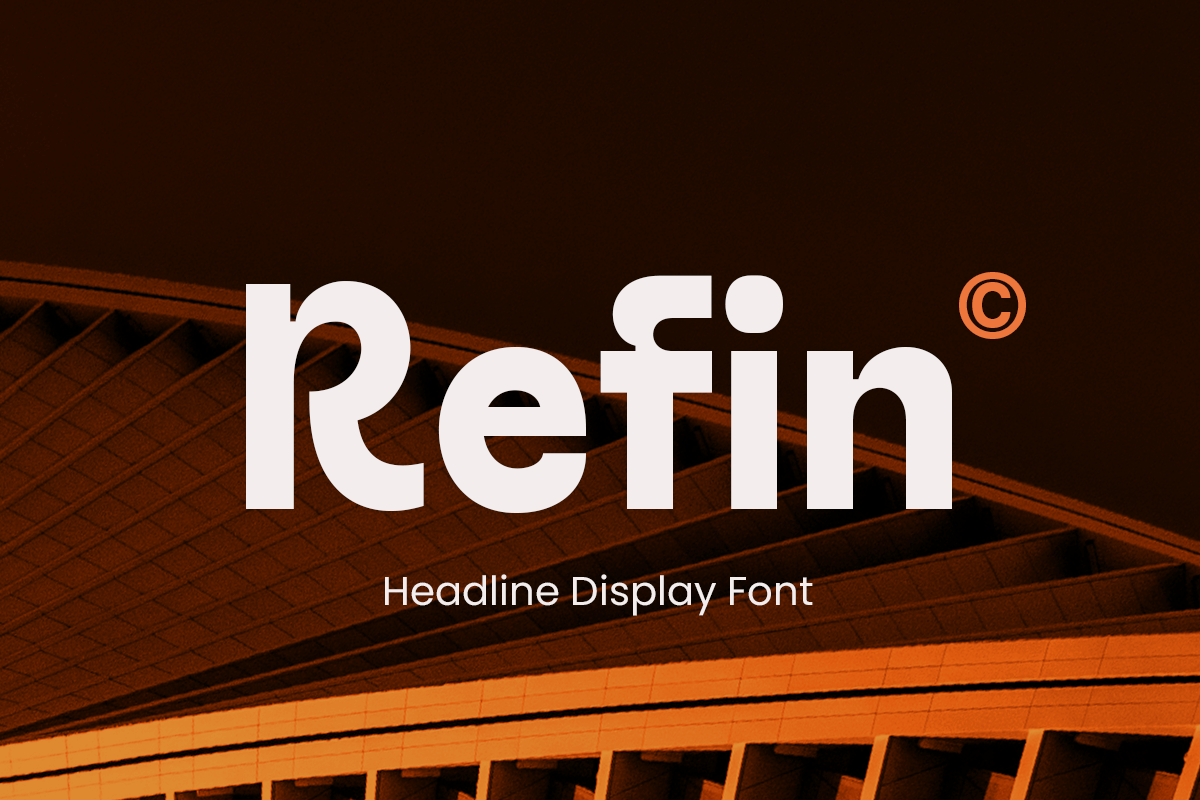
Refin
-Headline Display FontRefin is a bold and striking display font designed to make a statement. With its roots in brutalist aesthetics, Refin embodies a raw and powerful style, perfect for eye-catching headlines and impactful branding. The font’s sharp angles and strong lines give it an edgy, modern feel that’s ideal for projects seeking a touch of industrial flair.
This font was inspired by urban architecture and minimalist design, allowing it to stand out in digital and print media alike. Refin brings an unmistakable strength and clarity, making it a perfect choice for fashion, tech, and editorial layouts that demand attention. It’s crafted to convey boldness without compromising on legibility, providing a unique blend of style and functionality.
Whether used in advertising, logos, or product packaging, Refin elevates your designs with a contemporary edge that feels both fresh and timeless. Take your project to the next level with Refin—a display font that’s as memorable as it is impactful.
Refin Headline Display Brutalism Font Features:
Bold Brutalist Design